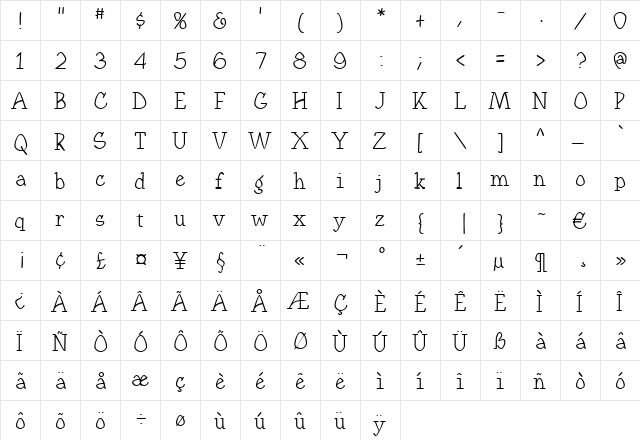
Sundsvall Regular
Design Context for Sundsvall Typeface
Sundsvall offers clean, dependable letterforms without strong stylistic allegiance, making it a practical choice for designers who need flexibility.